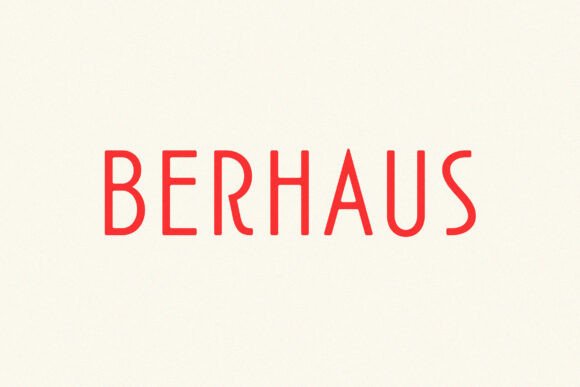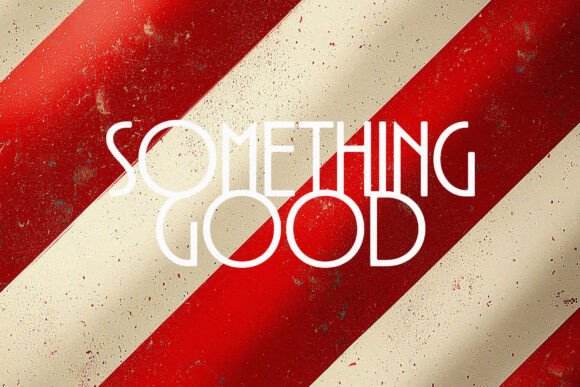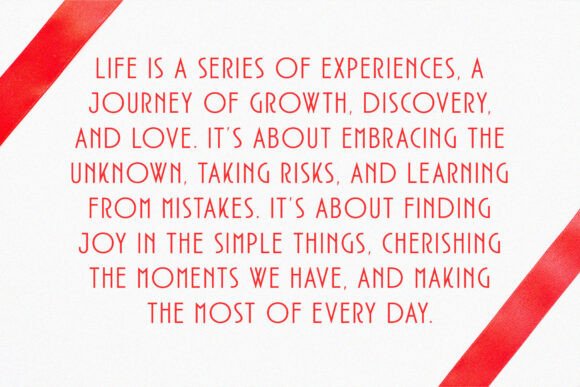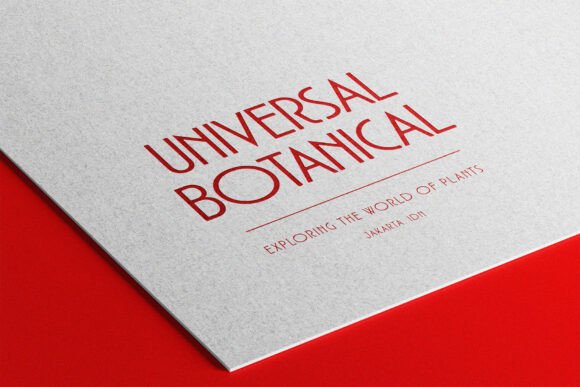
Berhaus Font: Vintage Sans Serif for Modern Logo Design & Branding
About the Berhaus Font
Get ready to be inspired by Berhaus Font, a fresh and dynamic typeface for modern creators. Introducing Berhaus Vintage Condensed Sans.
Berhaus is a modern and elegant font, best used as a display for headings, logos, branding, magazines, product packaging and invitations. Berhauscomes with clean lines and smooth curves, giving any project an extra touch of class.
Berhaus Font Usage Examples
Berhaus Font Example